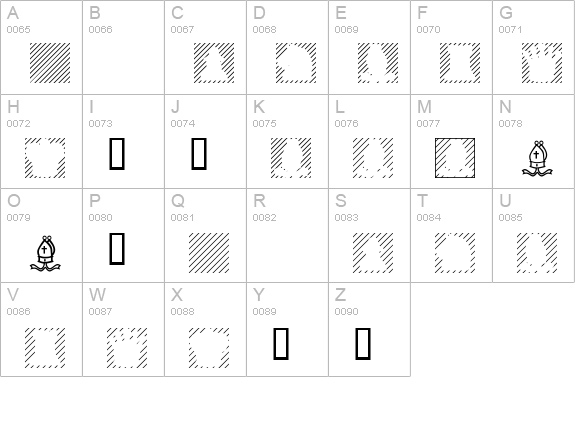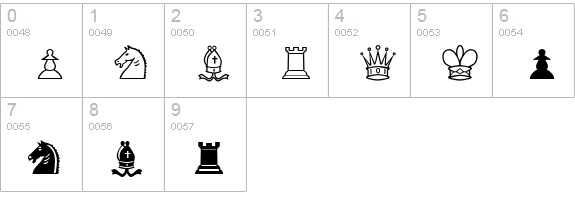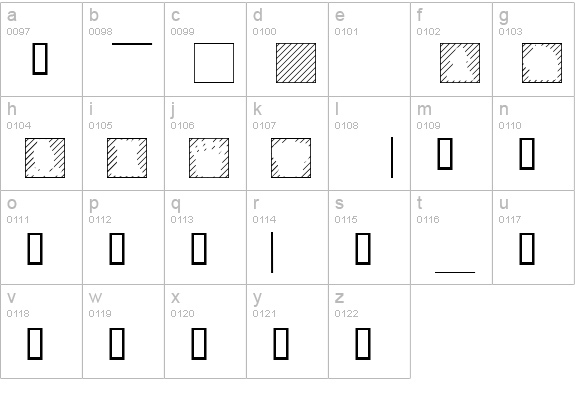
KnightMares Font Details
Introducing KnightMares, a captivating and awe-inspiring font that will transport you to the realm of medieval legends and chivalrous adventures. This bold and commanding typeface captures the essence of valiant knights, noble kings, and epic battles. With its intricate details and powerful letterforms, KnightMares commands attention and exudes an air of timeless elegance. Each stroke is carefully crafted to evoke a sense of strength and bravery, making it perfect for projects that demand a touch of historical grandeur. But what sets KnightMares apart is not just its remarkable design, but also its accessibility. We believe that creativity should know no boundaries, which is why KnightMares is freely available to download at FontsMarket.com. Whether you're a designer, a writer, or simply someone who appreciates the beauty of typography, this font is at your disposal, ready to inspire and elevate your work to new heights. Dare to embark on a journey into the past with KnightMares font. Let your imagination run wild as you bring to life tales of honor, loyalty, and adventure. With KnightMares, the power to captivate and mesmerize is in your hands. Download it today and unleash your creative potential.